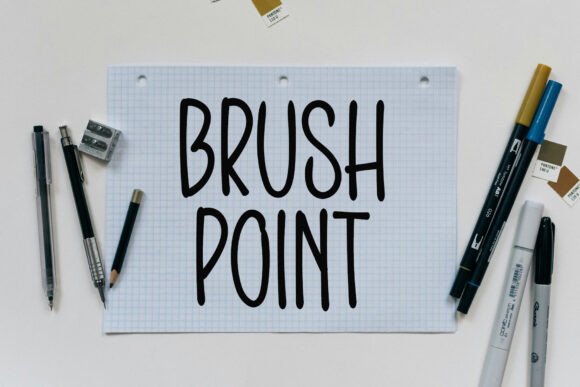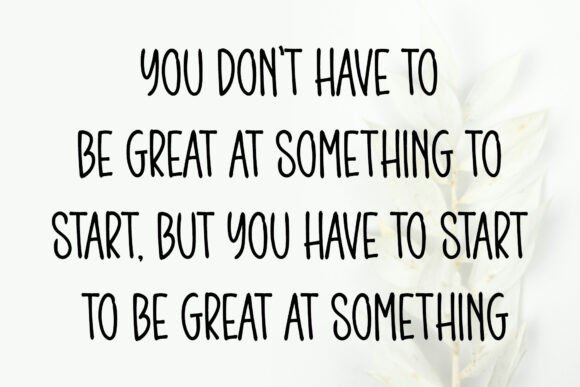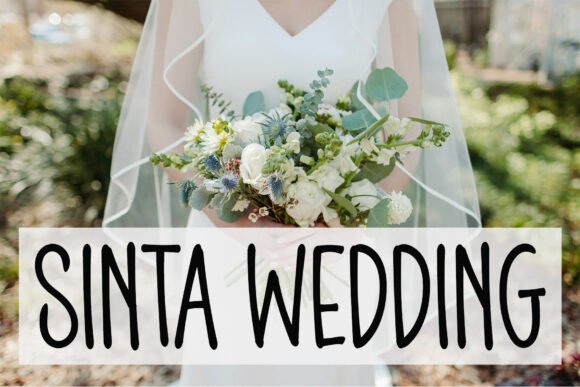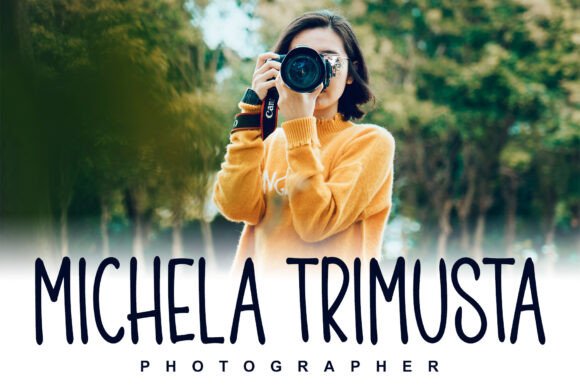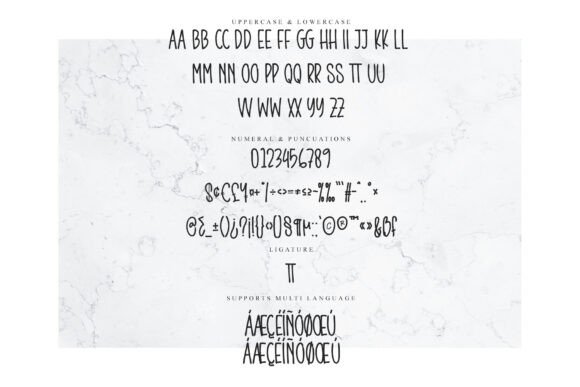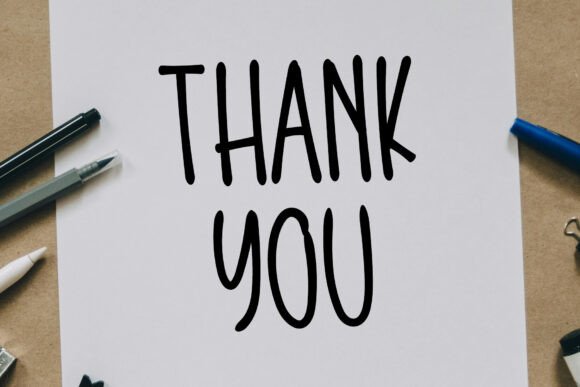
Introduction to Moderate Handwritten Font
Moderate Handwritten is a stylish handwritten font with a contemporary atmosphere and impeccable form, inspired by timeless classic calligraphy.
Balanced and varied, this font was designed to enhance the beauty of your projects .
Key Features of Moderate Handwritten Font